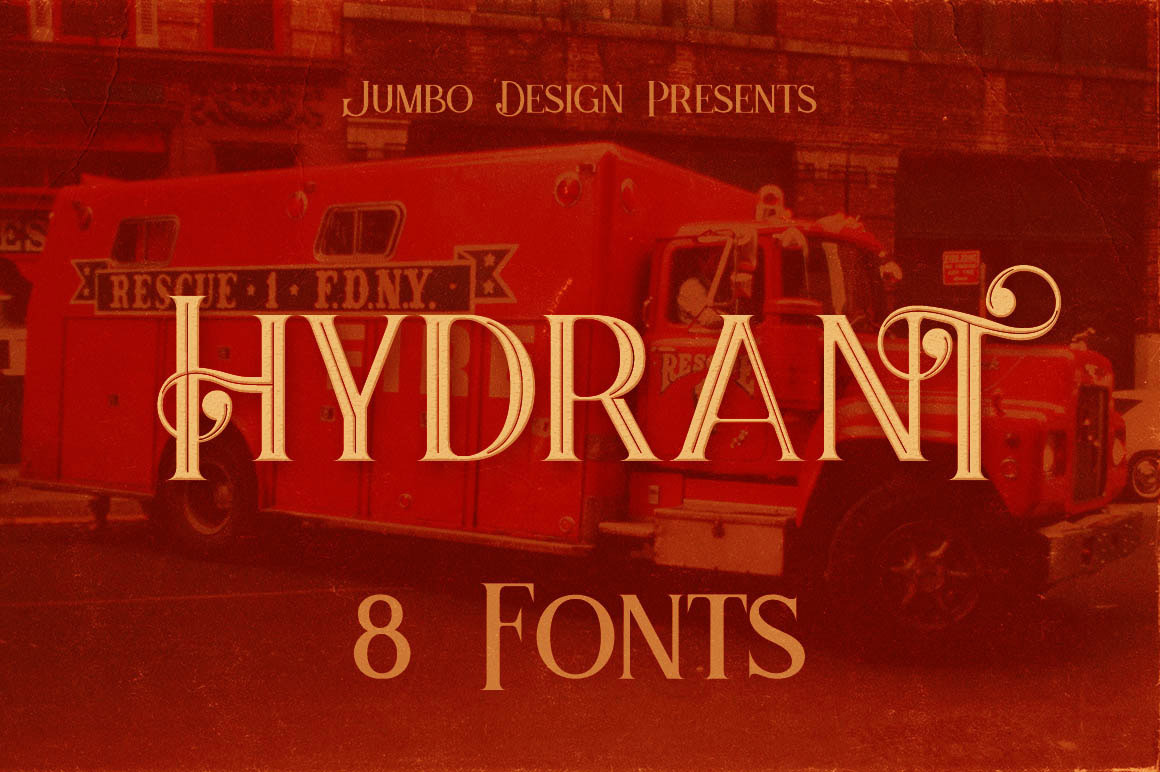
Hydrant - Vintage Style Font
Unique retro or vintage style custom serif font with 8 styles: regular and grunge, inline and inline grunge, shadow and shadow grunge, shadow inline and shadow inline grunge.